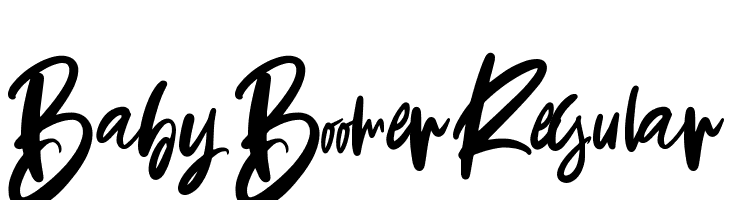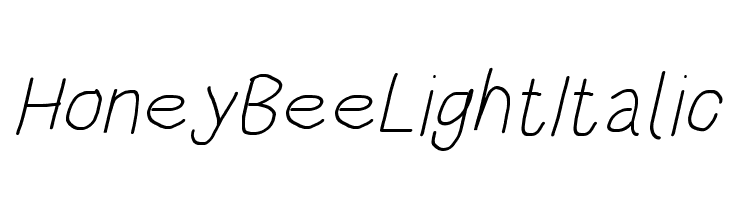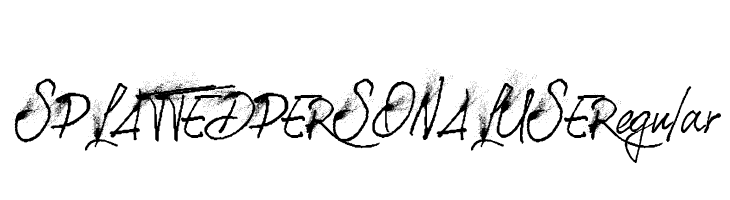
A bold, expanded blackletter-style font with intricate serifs and gothic flair.
A dynamic script font with elegant calligraphic strokes and modern flair.
A bold, brush-style handwritten font with dynamic strokes.
A bold, hand-drawn font with a textured, artistic style.
( Updated : Multilingual support has been added aswell as 3 more styles. ZF2334 That's All Right is a low contrast condensed sans-serif font. It is a bit geometric and somewhat similar to DIN and Frutiger. The 3 first styles are monoline except for some c )
A playful, handwritten-style font with dynamic curves and a casual feel.
A geometric, italicized font with octagonal shapes and a futuristic style.
A geometric font with hexagonal frames and a futuristic, industrial style.
A modern, narrow font with a geometric and sophisticated style.
An elegant script font with flowing, cursive strokes and graceful curves.